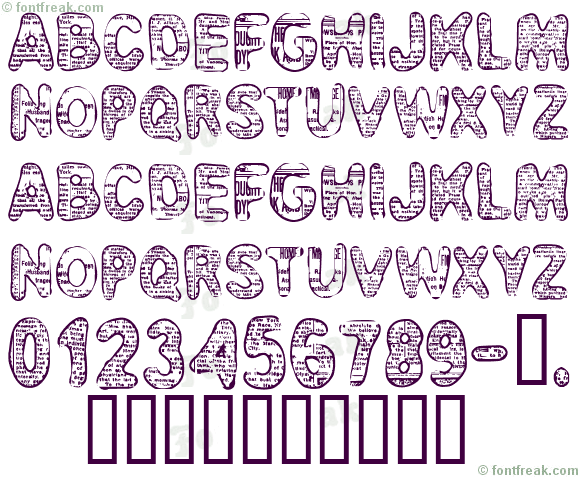
CF Bad News Regular
About CF Bad News Regular
CF Bad News Regular, designed by Cloutierfontes, is a unique decorative font that captures attention with its playful yet impactful style. This font falls into the display category, making it an excellent choice for projects that require a bold statement. The visual characteristics of CF Bad News Regular feature a fun, slightly irregular stroke weight that gives it a hand-drawn feel, while the contrast between thick and thin lines adds a dynamic flair. The spacing is well-balanced, allowing for easy readability while maintaining a whimsical aesthetic.
This font is ideal for various creative applications, particularly in digital and print media. It shines in wedding invitations, where its quirky charm can set a lighthearted tone. Movie posters also benefit from its distinctive look, as it can effectively convey a sense of drama or whimsy, depending on the context. Restaurant menus that aim for a casual vibe will find CF Bad News Regular adds personality to their offerings, while flyers for events or promotions can leverage its eye-catching design to attract attention.
What sets CF Bad News Regular apart is its ability to blend playfulness with professionalism, making it suitable for both formal and informal contexts. This font not only stands out visually but also resonates with its audience, providing an engaging way to communicate messages effectively. For those seeking a distinctive typeface, the CF Bad News Regular font free download offers an excellent opportunity to elevate their design projects.